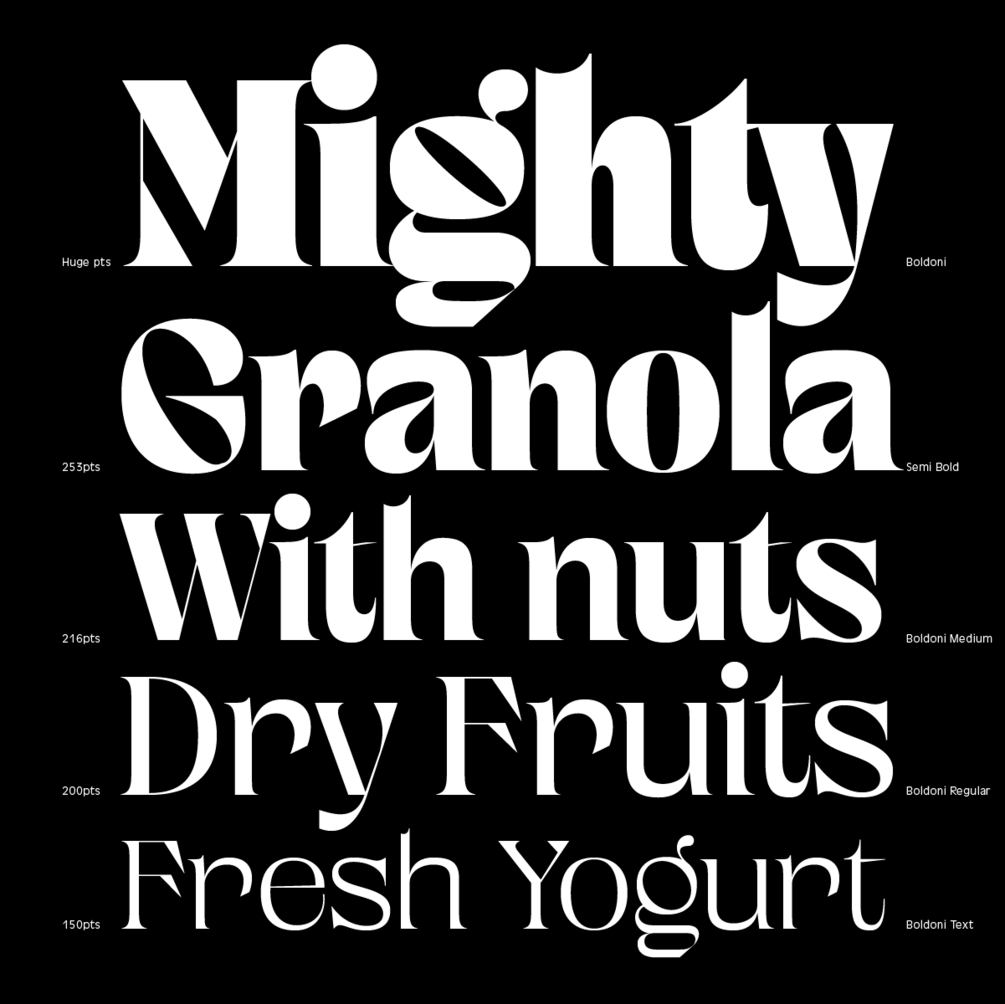
Boldoni
Boldoni is a new display typeface designed for display purposes. Packed with tons of alternates, this typeface will help you create amazing brand materials. It comes in 5 weights and it is perfect for bold branding projects. The variable file is included in the full desktop family pack.
Opentype Features: Stylistic Alternates, Ligatures.
Designed by Andrei Robu.